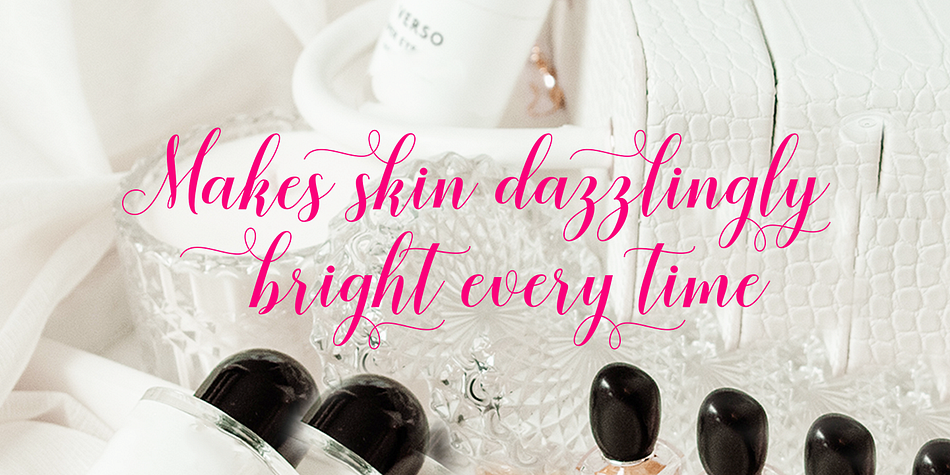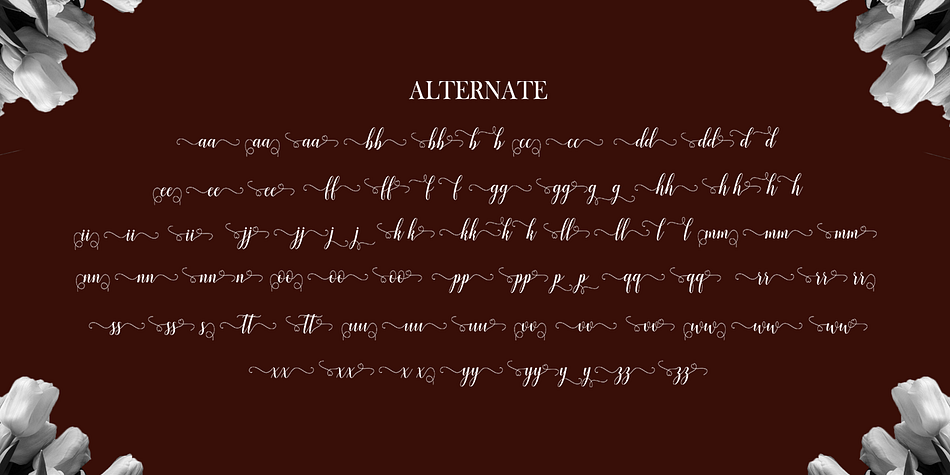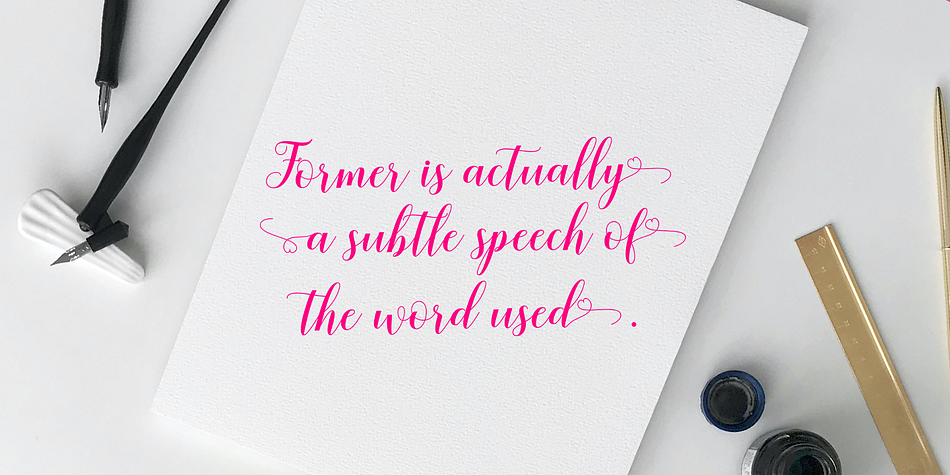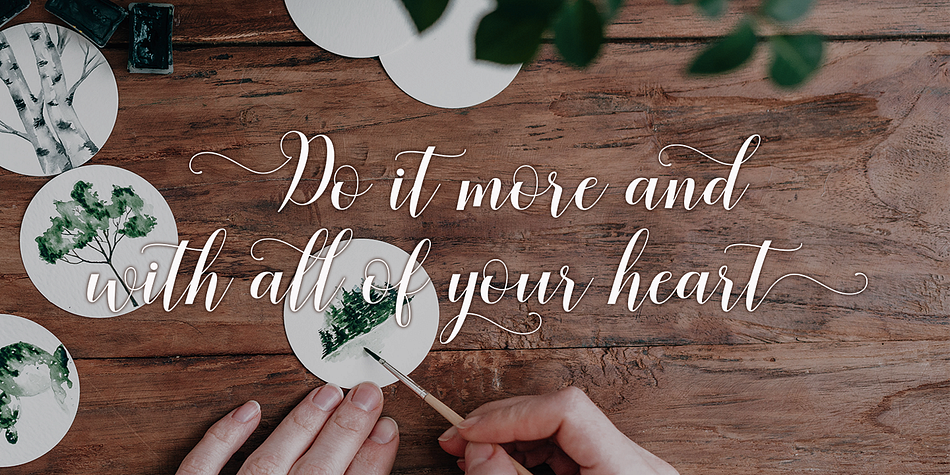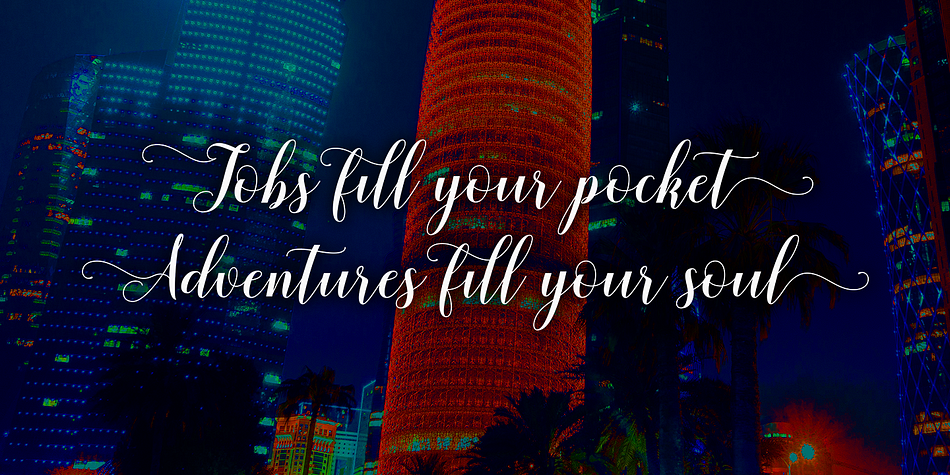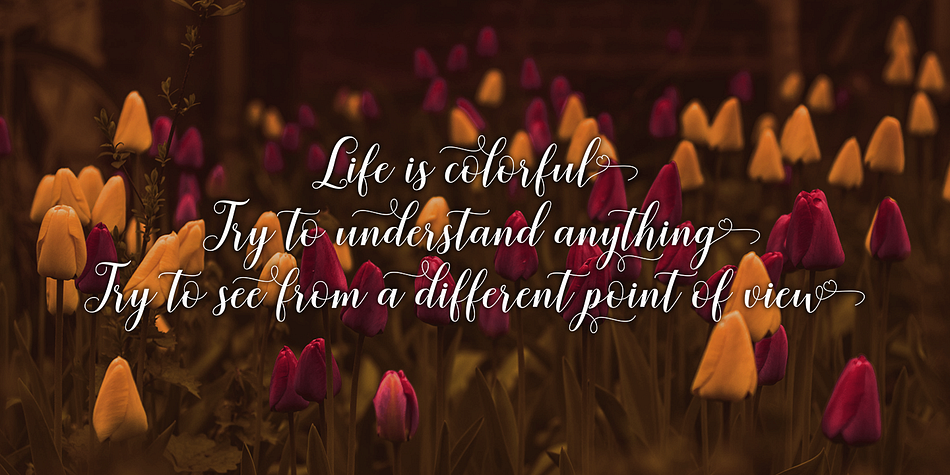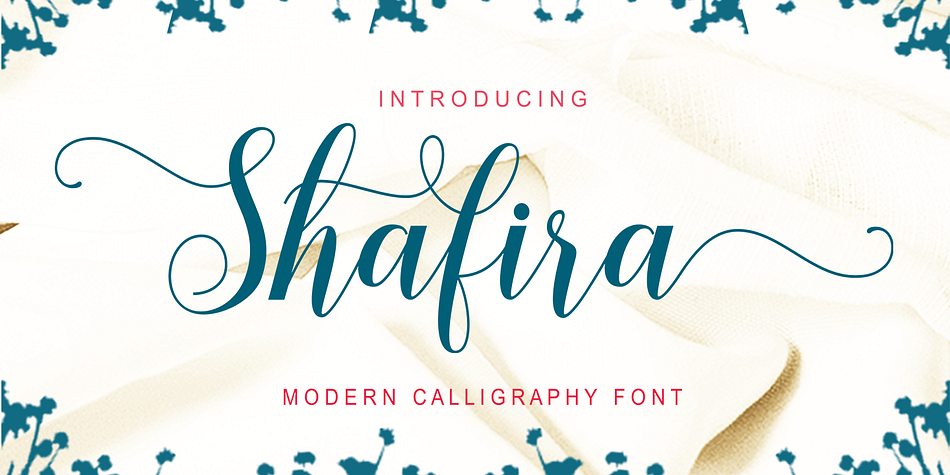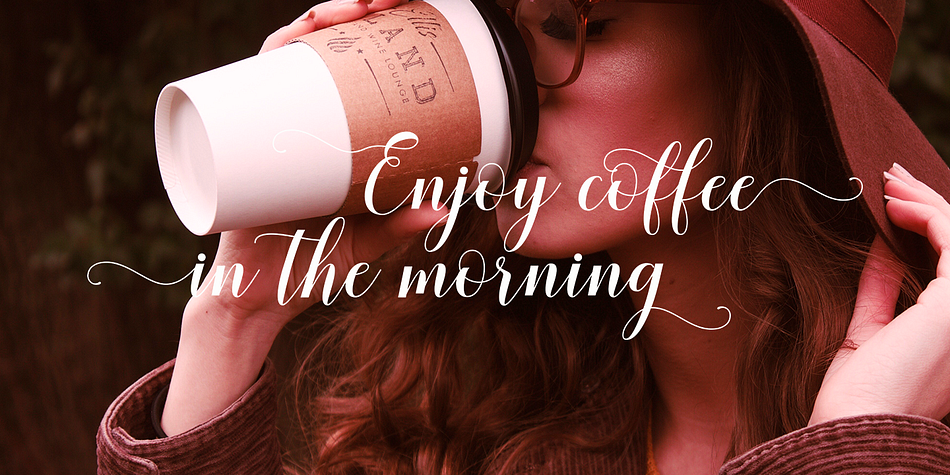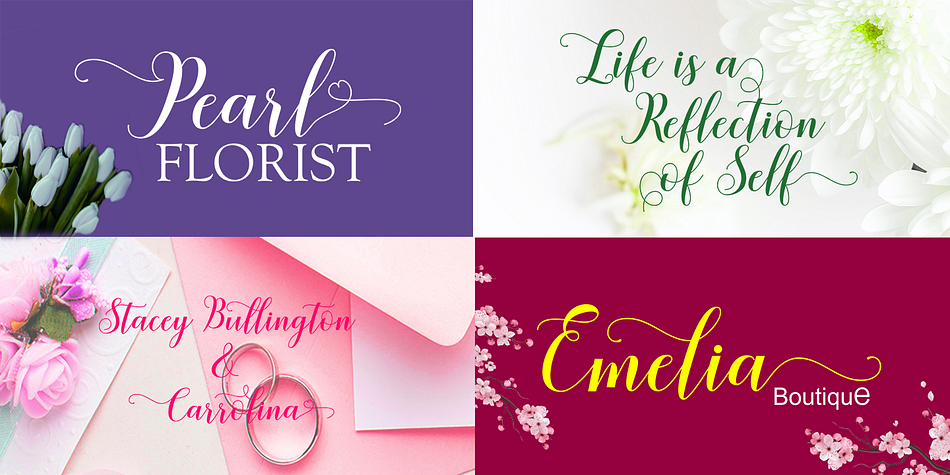
Shafira
Shafira is a brush script font family published by Gatype.
Shafira is a beautiful and sweet calligraphy font. It’s fresh, modern and elegant. This font will look amazing in many projects, from wedding invitations and greeting cards to social media quotes, branding, and more!
Hand-drawn design elements allow you to create many beautiful typographic designs in an instant like branding, web design and editorial, prints, crafts, quotes, It’s great for logotypes, wedding invitations, romantic cards, labels, packaging, spelling of names and others.